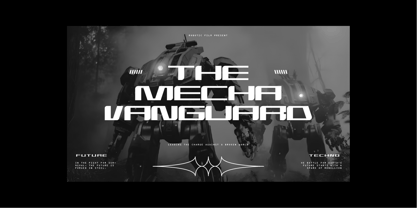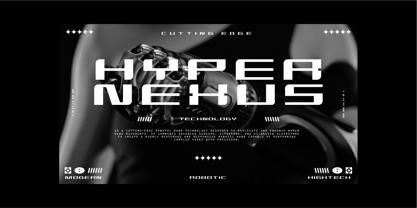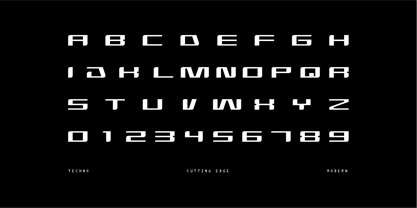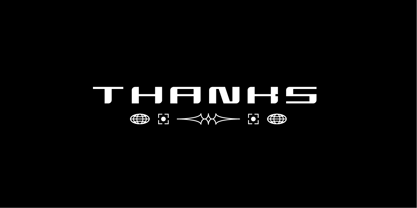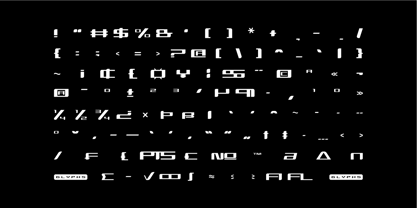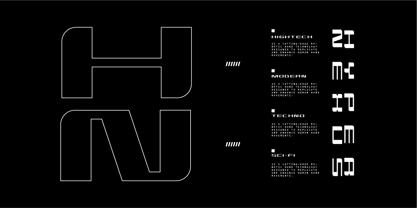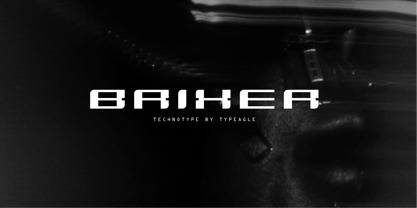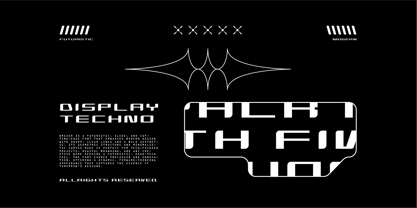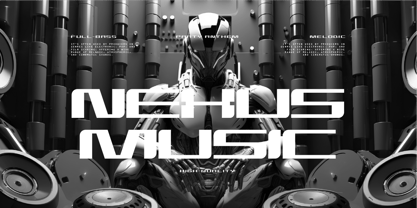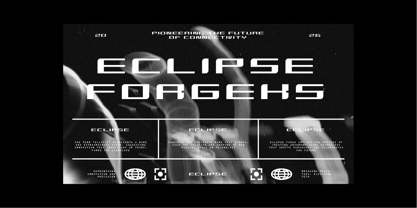
Brixer
by Typeagle
The Brixer Font Family and published by Typeagle. Brixer contains 1 styles. More about this family
Brixer is a futuristic, sleek, and cutting-edge font that embodies modern design with sharp, clean lines and a bold aesthetic. Its geometric structure and minimalistic curves make it perfect for tech-focused projects, digital branding, and any creative work seeking a futuristic, high-tech feel. The font exudes precision and innovation, offering a dynamic, forward-thinking appearance that captures the essence of tomorrow's designs.